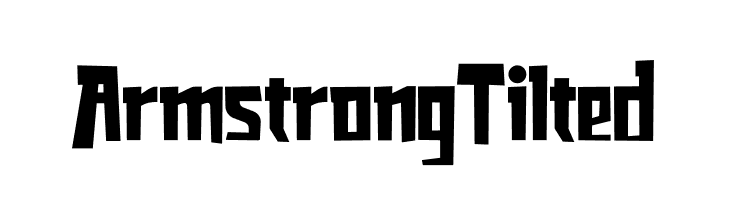
A bold, geometric font with a modern, industrial style.
A bold, oblique font with high contrast and tight spacing, ideal for dynamic designs.
A bold, italicized font with geometric influences and a dynamic appearance.